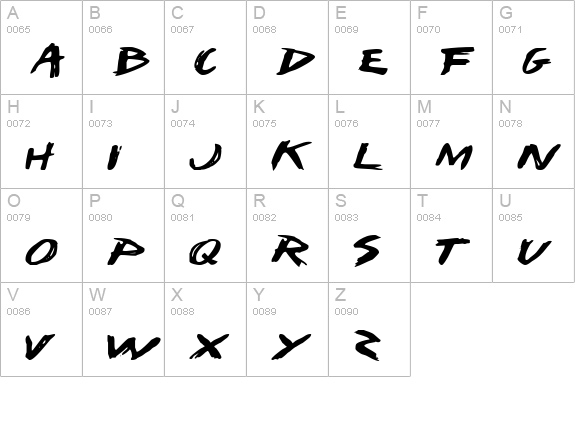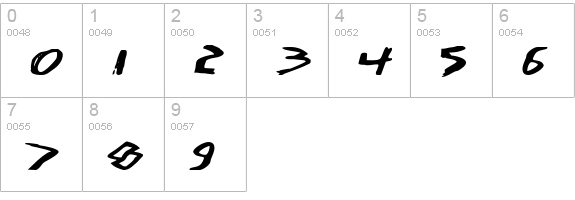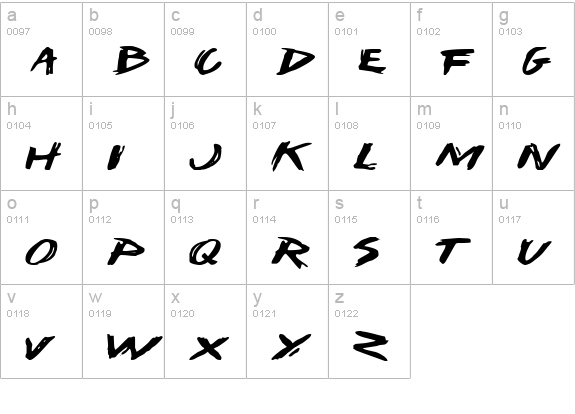
I Want My TTR! Expanded Font Details
I Want My TTR! Expanded is a distinctive, extended-width variant in the I typeface family \xE2\x80\x94 well suited to design and typography projects.
Introducing the highly anticipated I Want My TTR! Expanded font, now available in a mesmerizing extended version! This expanded font takes the original I Want My TTR! font to new heights, offering an even bolder and more impactful appearance. With its sleek and modern design, I Want My TTR! Expanded is perfect for creating eye-catching headlines, attention-grabbing logos, and stunning promotional materials. This expanded font is not only visually striking but also incredibly versatile. Its wide range of characters and glyphs allows for seamless integration into various design projects, providing endless opportunities for creativity. Whether you are designing a poster, a website, or a branding concept, I Want My TTR! Expanded will effortlessly elevate your work to new levels of professionalism and sophistication. And the best part? I Want My TTR! Expanded is available for free! That's right, you heard it correctly. This remarkable font can be downloaded at no cost from FontsMarket.com. We believe that design inspiration should be accessible to everyone, and we are excited to offer this expanded version of I Want My TTR! as a free resource to designers, artists, and creatives worldwide. With its bold and captivating aesthetic, I Want My TTR! Expanded is bound to become an essential tool in your design arsenal. Its versatility, combined with its availability as a free download, makes it a must-have for anyone looking to make a lasting impression with their visual creations. So why wait? Visit FontsMarket.com today and elevate your designs with the striking I Want My TTR! Expanded font. Download it for free and unleash your creativity like never before.